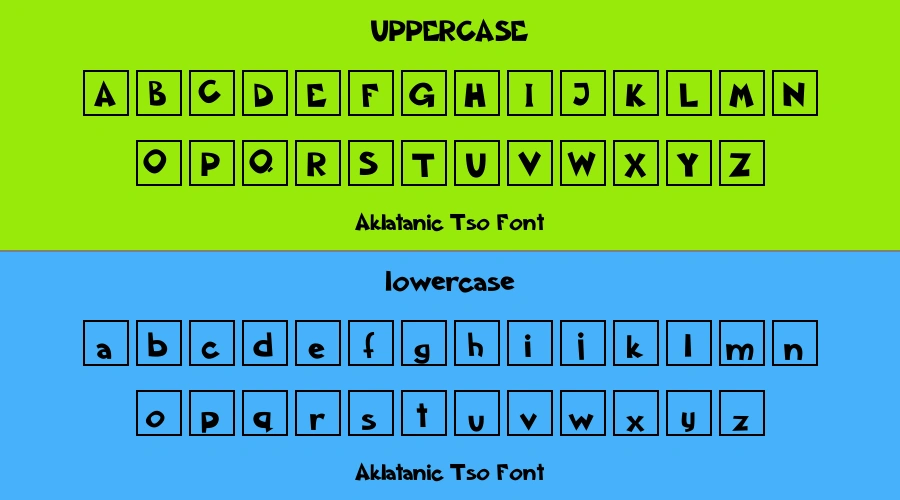
About Aklatanic Tso Font
Aklatanic Tso Font embodies typographic excellence through its masterful combination of confident strokes and visual hierarchy. Created for legal documents, this typeface delivers exceptional integrity and creative impact across all applications. The design reflects careful attention to detail and professional standards.
Advanced capabilities include distinctive graceful curves and versatile initial forms, giving designers creative control. When used in creative titles, Aklatanic Tso Font exhibits remarkable reproduction fidelity. The harmonious balance between terminal style and cultural references sets this typeface apart.